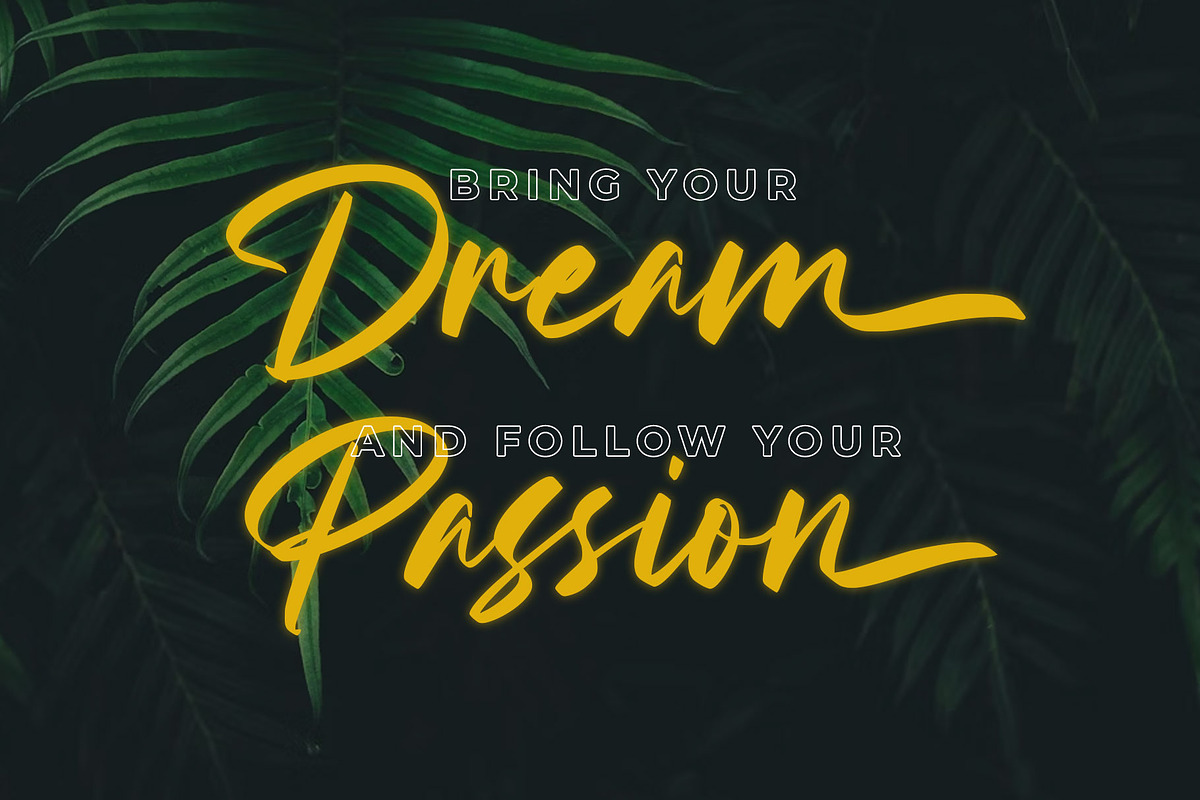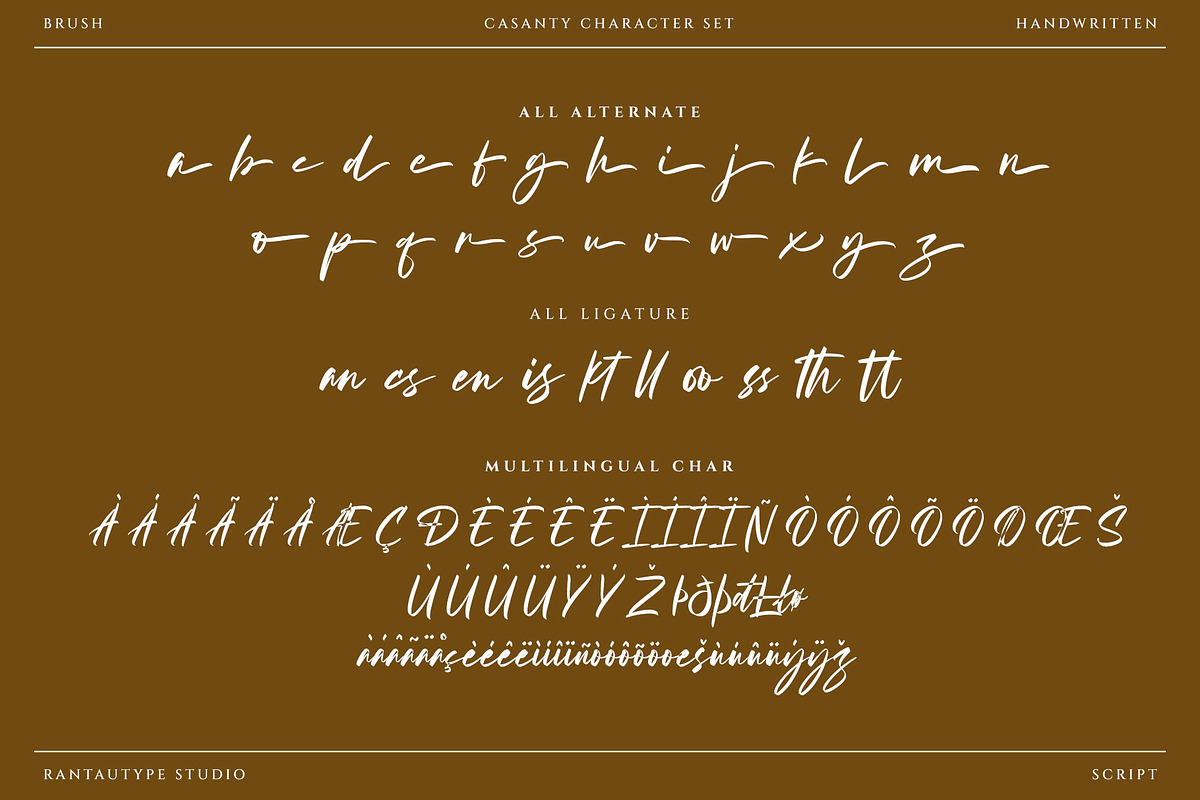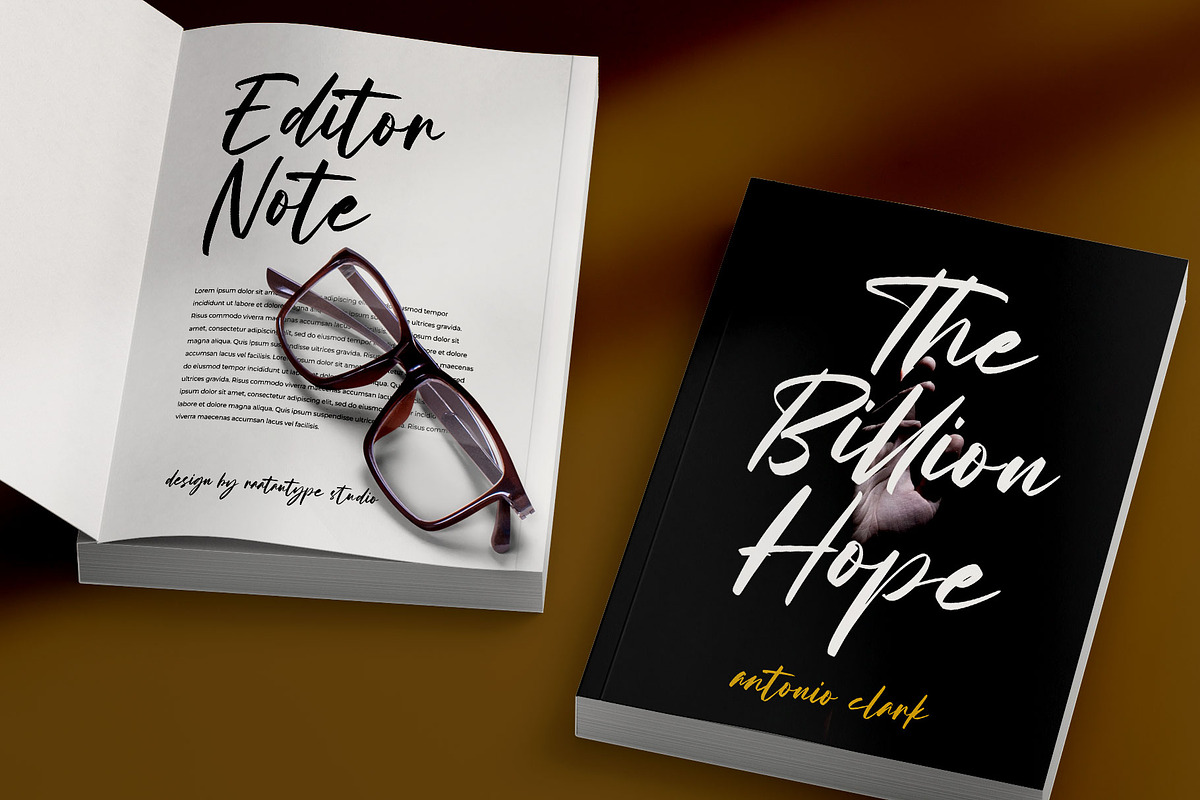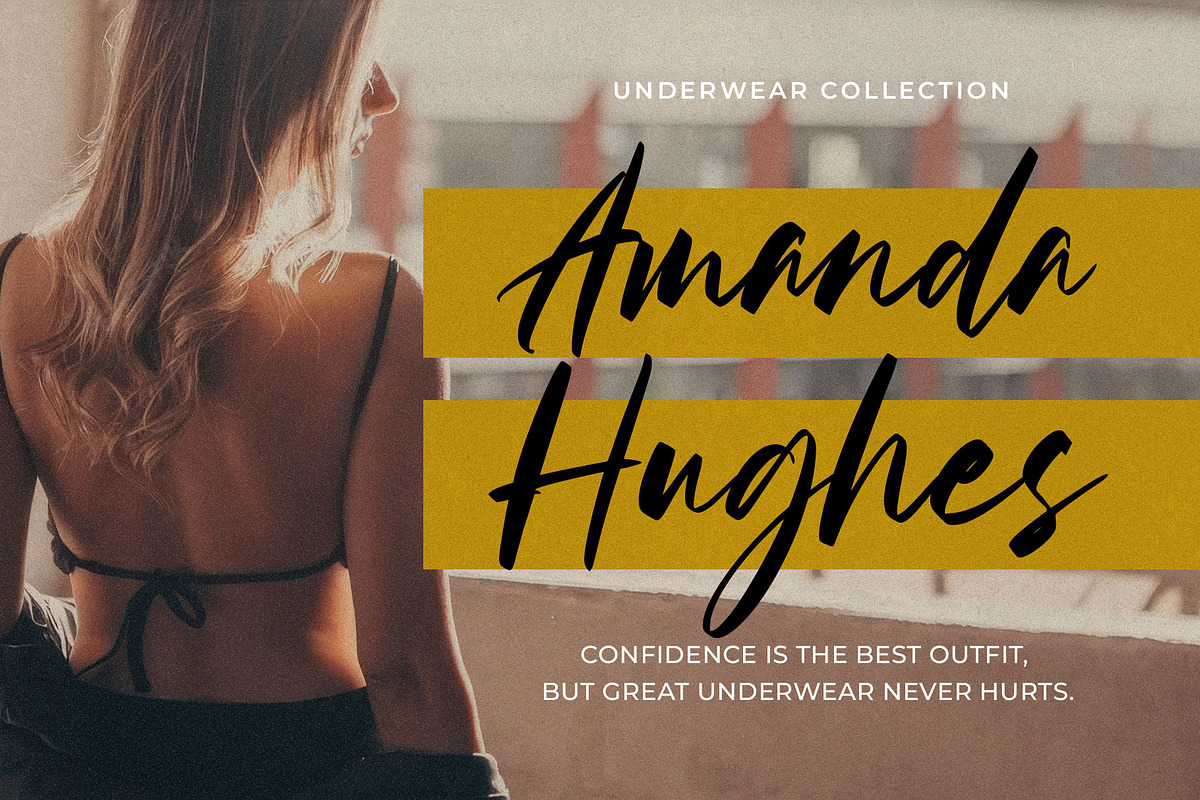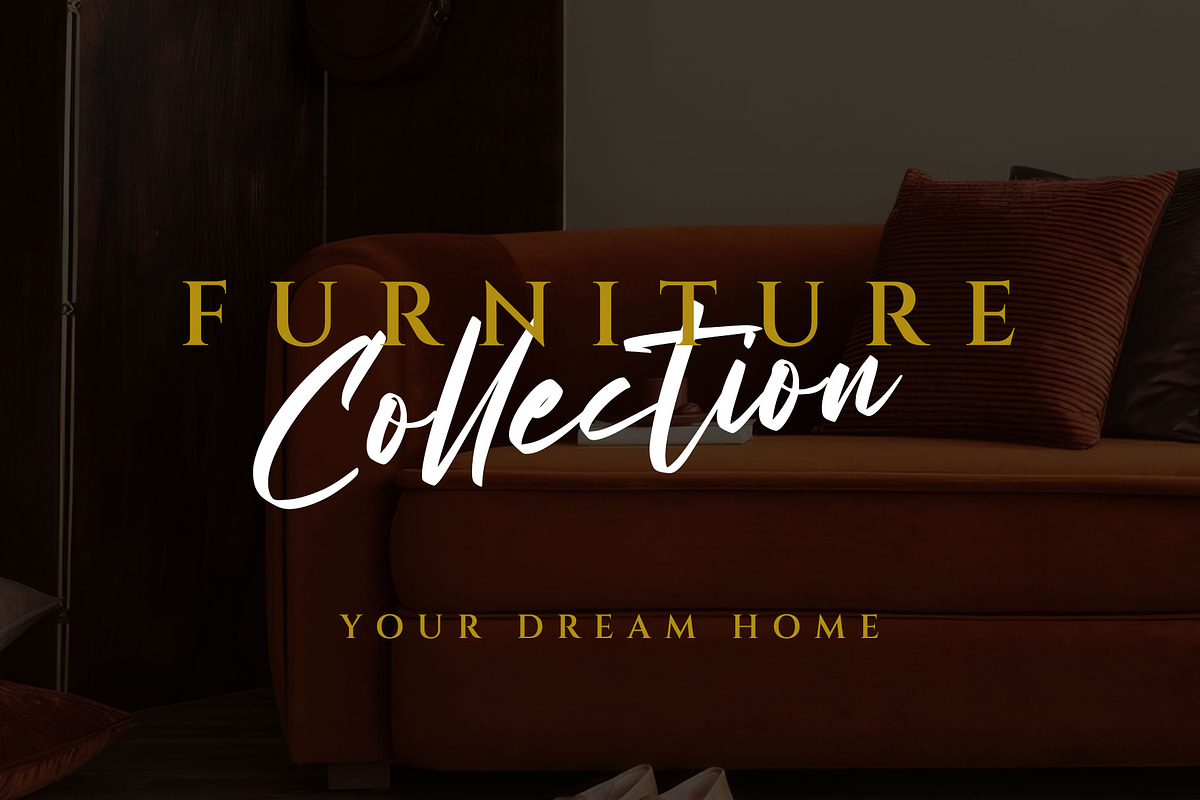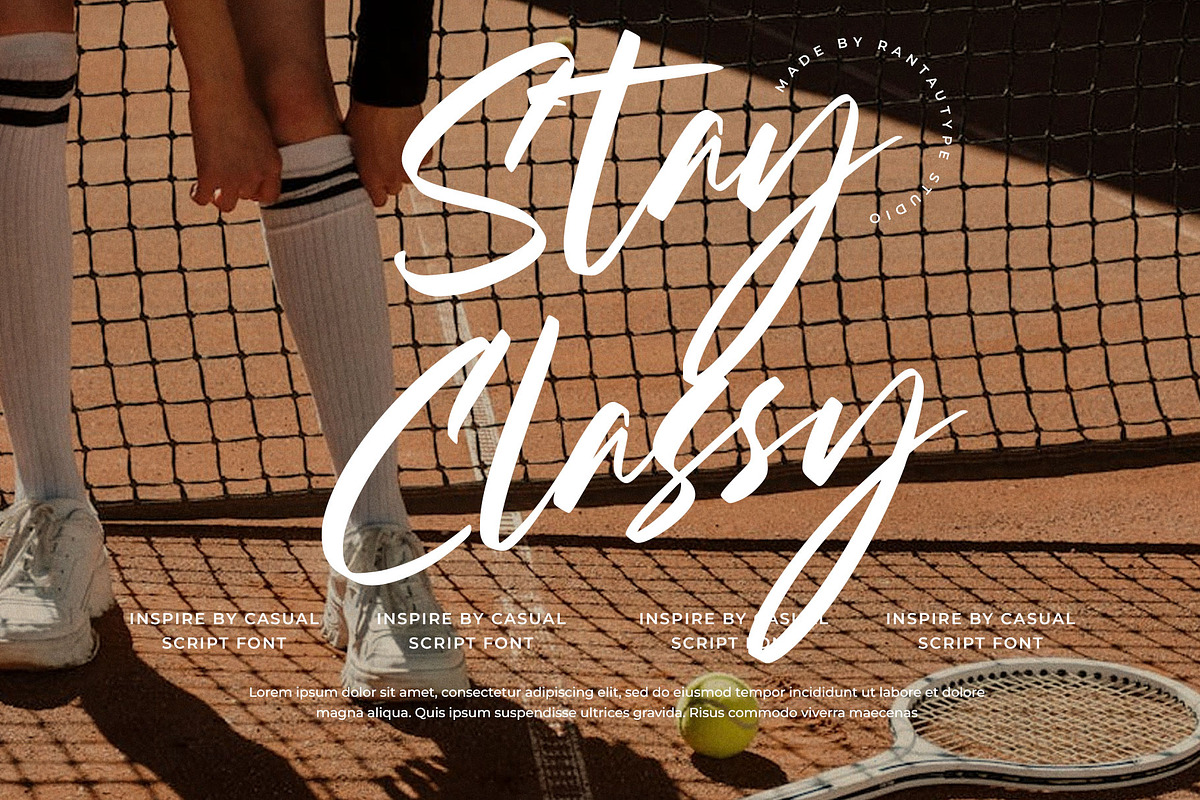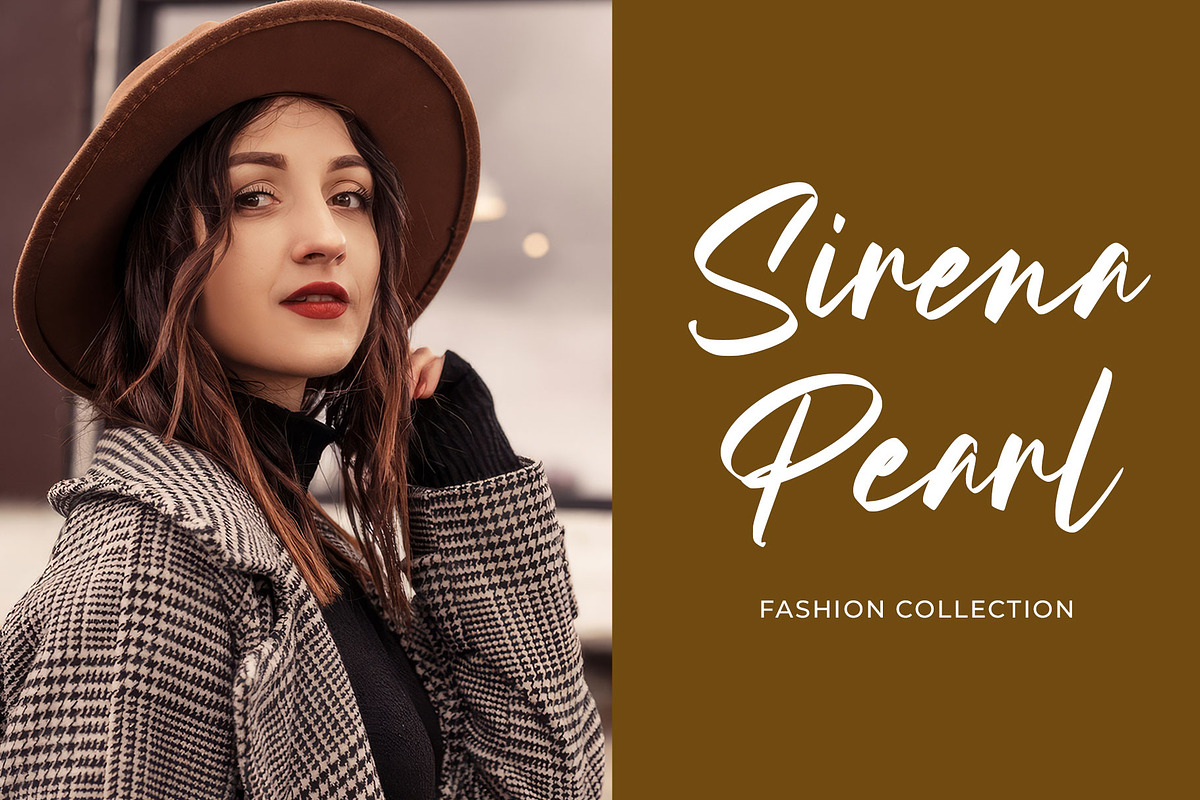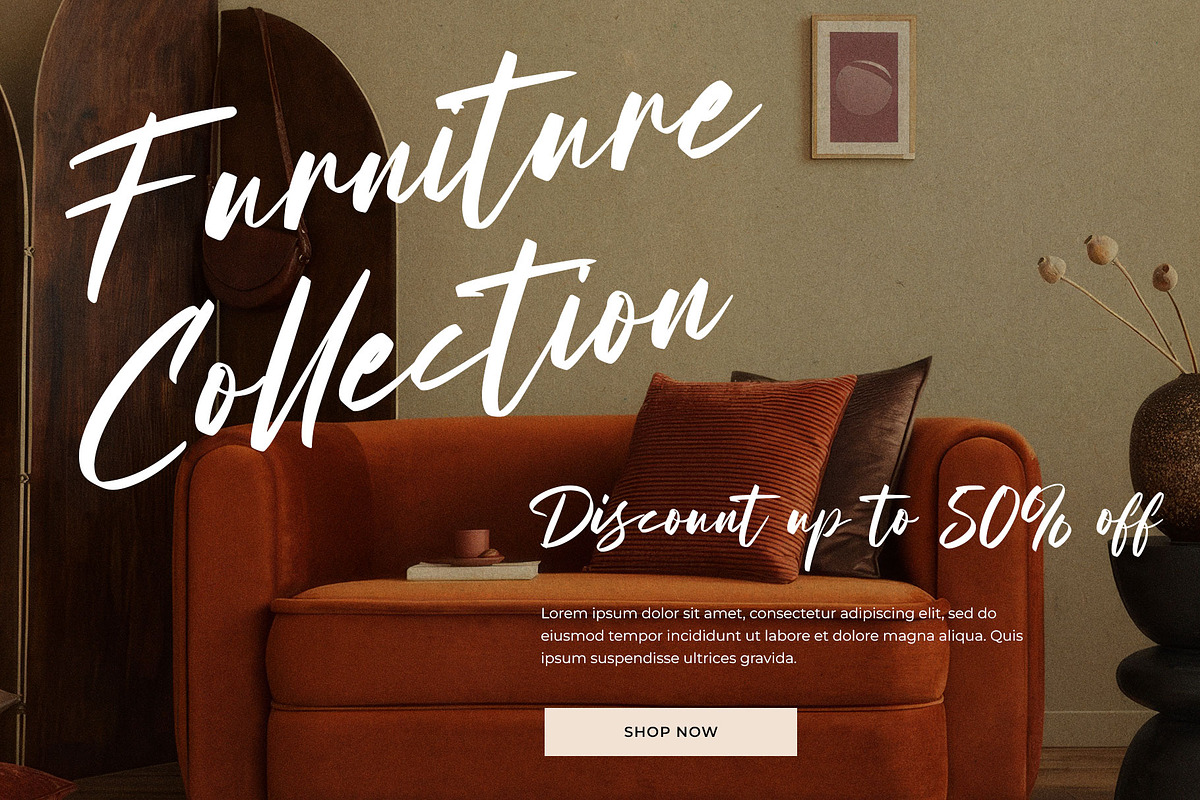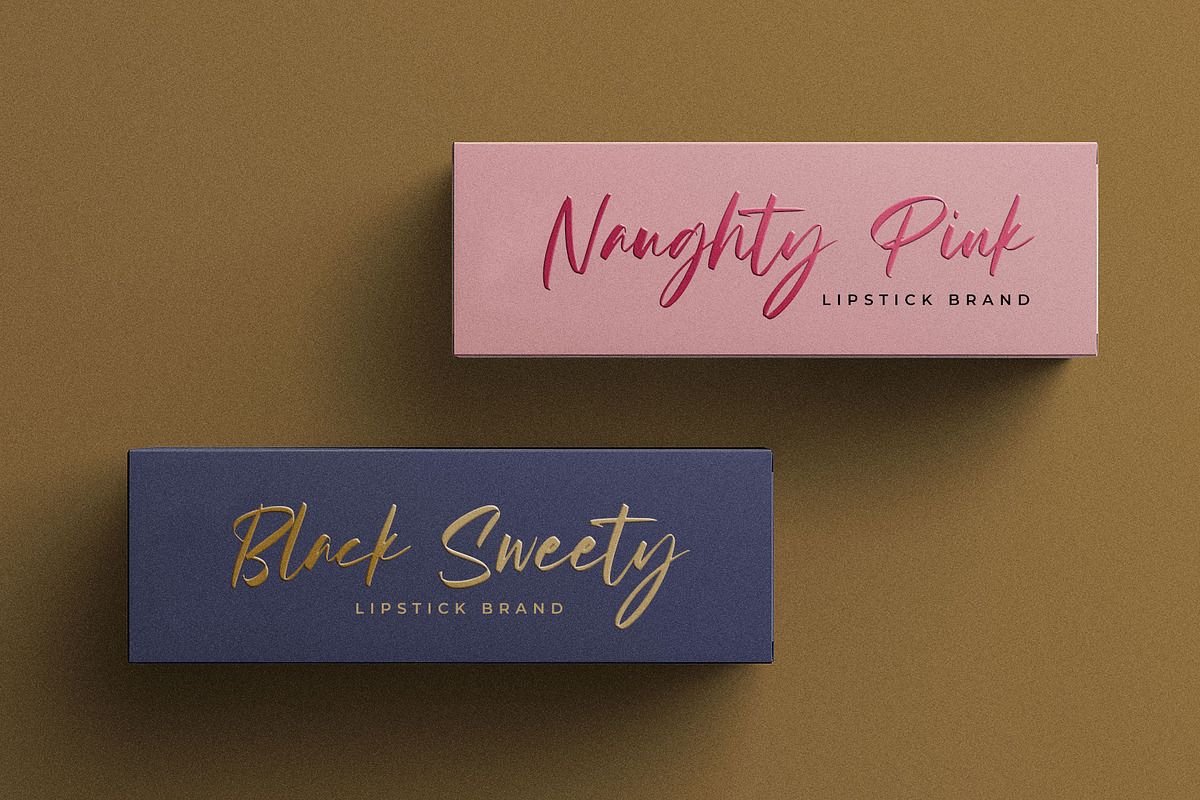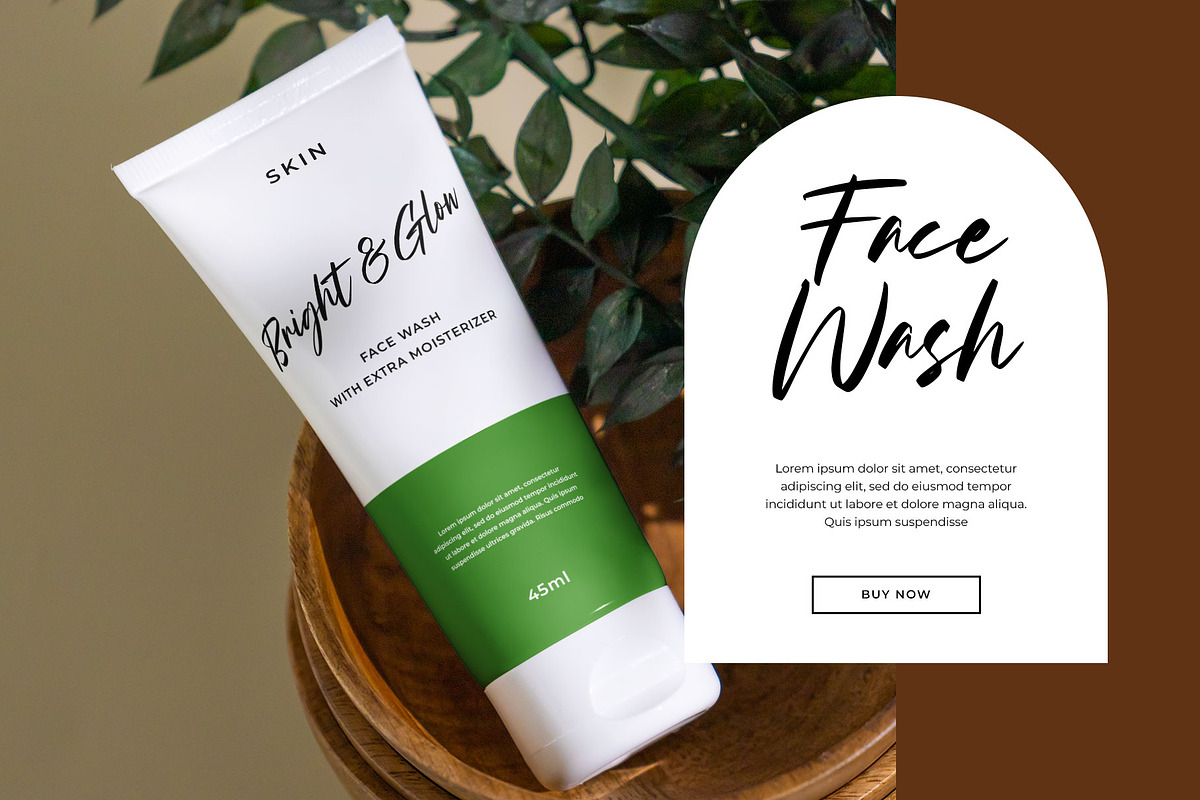
Casanty Signature Brush Font
Casanty is signature brush font with elegant scratch. We keep this font modern look, stylish, siganture and easy to use. Casanty is a perfectly choice for any creative endeavor, modern, chic, lifestyle design such as logotype, title, cover, branding, invitations, wedding designs, display and magazine, social media posts, advertisements, printed quotes, product packaging, corporate brand, product designs, labels, photography, watermarks, special events and any other project with handwritten touch.
- Standart Glyphs
- Alternate and ligature
Fonts include Multilingual Character for: Afrikaans, Albanian, Asu, Basque, Bemba, Bena, Breton, Chiga, Cornish, Dutch, English, Estonian, Filipino, Finnish, Friulian, Galician, Gusii, Indonesian, Irish, Italian, Kabuverdianu, Kalenjin, Kinyarwanda, Luo, Luxembourgish, Luyia, Machame, North, Oromo, Portuguese, Quechua, Romansh, Rombo, Rundi, Rwa, Samburu, Sango, Sangu, Scottish, Gaelic, Sena, Shambala, Shona, Soga, Somali, Spanish, Swahili, Swedish, Swiss, German.